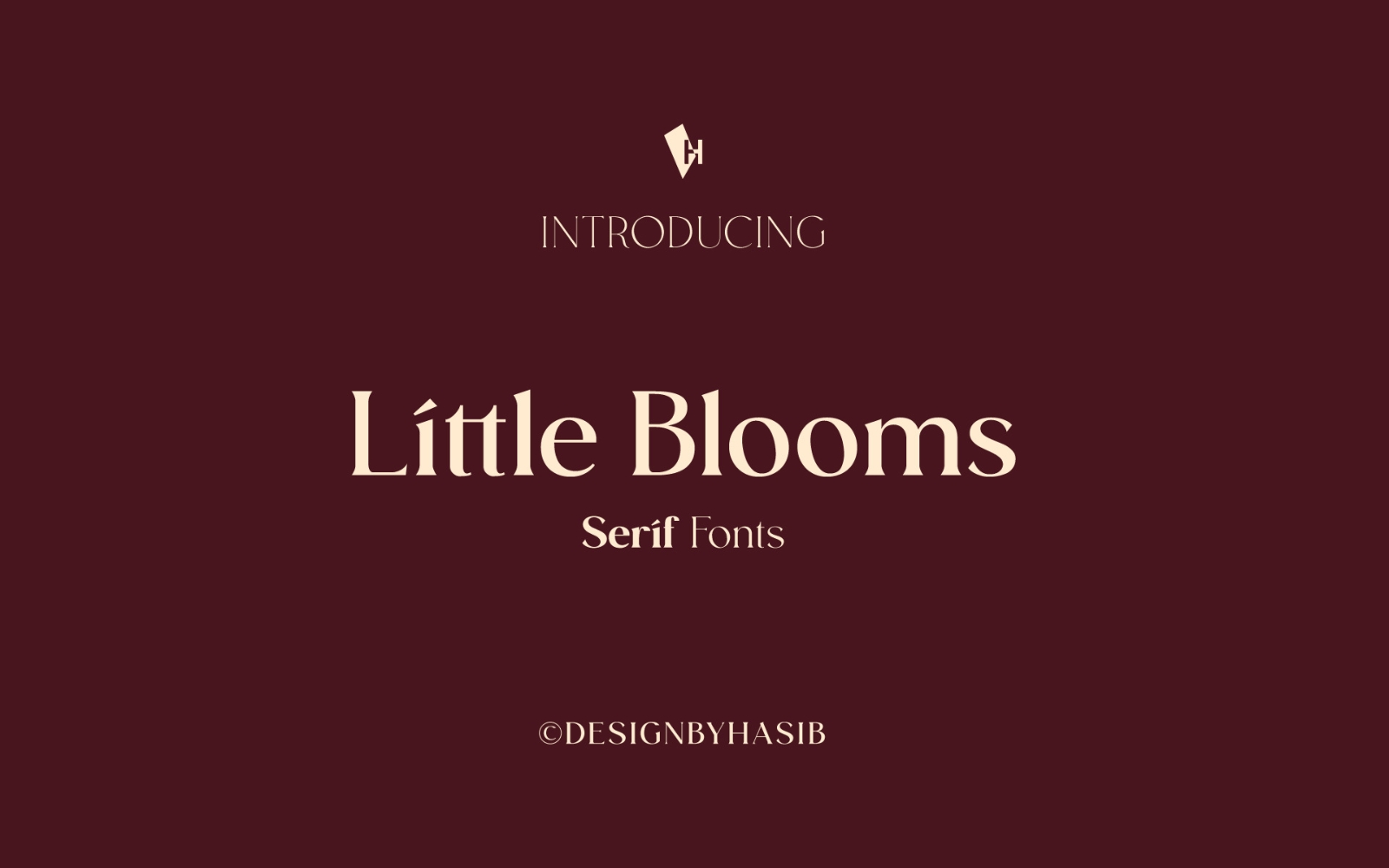
Little Blooms – Elegant Serif Font
Little Blooms is a beautifully crafted serif font that captures the essence of subtle elegance and timeless charm. With its refined curves and classic letterforms, this typeface brings a soft, romantic touch to any design.
Perfect for branding, editorial layouts, invitations, logos, and high-end packaging, Little Blooms blends traditional serif sophistication with a modern sensibility. Its versatile nature makes it ideal for both display and body text, lending a graceful personality to every word.
Whether you’re designing for a boutique, a wedding suite, or a lifestyle blog, Little Blooms is your go-to font for a look that’s effortlessly polished and chic.
Features:
- Uppercase & Lowercase Letters
- Numbers & Punctuation
- Elegant Ligatures
- Multilingual Support
- Font Case: Light, Regular, Bold, and Black
Let your words blossom with Little Blooms, the serif that speaks with style and softness.